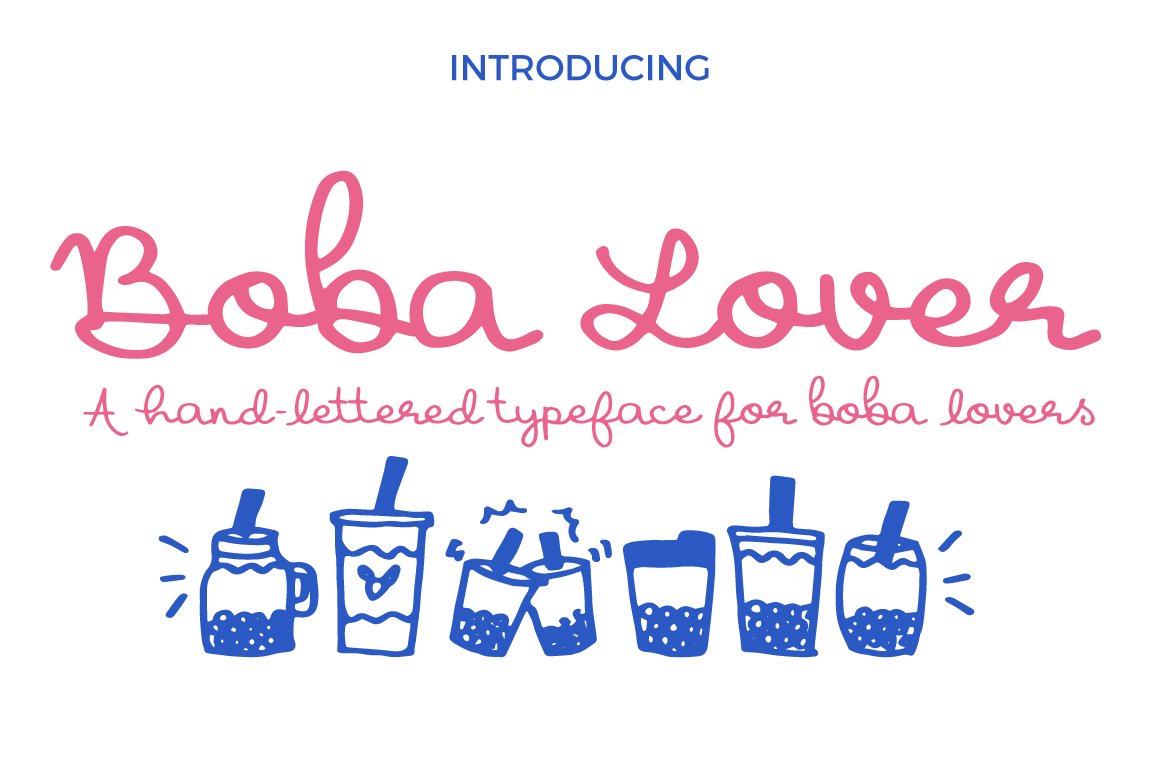
Get Ready to Sip on Creativity with Boba Lover Font
There’s something magical about creating a design that brings a smile to someone’s face. It’s that moment of pure joy when you see your ideas come to life, and you can’t help but feel a sense of pride and accomplishment. For many of us, that moment is often sparked by a favorite drink, like a refreshing glass of boba tea.
That’s why we’re excited to introduce Boba Lover Font, a charming handwriting script typeface designed to capture the carefree spirit of boba tea lovers. With its cute and relaxed vibe, this font is perfect for adding a touch of fun and sunniness to your designs. Whether you’re a graphic designer, social media influencer, or simply a boba enthusiast, the Boba Lover Font is sure to bring a smile to your face.
Boba Lover Font Key Features
- Font Family: Boba Lover Font offers a unique, playful font family with 6 styles (Thin, Light, Regular, Medium, Bold, Black) to cater to various design needs.
- Unique Characteristics: The Boba Lover Font features a unique, hand-drawn design with a mix of Asian and Western influences, making it perfect for creating a distinctive brand identity.
Boba Lover Font Review
As a designer, I’ve had the chance to work with the “Boba Lover Font”, and I must say it’s a unique addition to any design project. ✨ One of the things that really stands out about this font is its playful, cursive style that perfectly captures the bubbly spirit of bubble tea. ✨ The font is incredibly versatile, making it suitable for a wide range of designs, from social media graphics to merchandise and even advertisements. ✨
However, as with any font, there are some limitations. ⚠️ For one, the font can be quite busy and may not be the best choice for text-heavy designs. Additionally, some characters may not render properly on certain devices, which could be a problem if you’re working on a project that requires high-level accessibility. ⚠️
Overall, I think the “Boba Lover Font” is a great addition to any designer’s toolkit, especially for those working on projects related to food, drink, or lifestyle. While it may have some limitations, its unique style and versatility make it well worth the investment. Just be sure to test it thoroughly before committing to a large-scale project.
Here are some key features of the font:
- Playful, cursive style
- Highly versatile
- Suitable for a wide range of designs
- May not be suitable for text-heavy designs
- Some characters may not render properly on certain devices
For the best results, use the Boba Lover Font on designs related to boba, tea, or Asian culture.
- Boba shop logos and branding.
- Tea-related product packaging and marketing materials.
- Asian-themed invitations and party decorations.